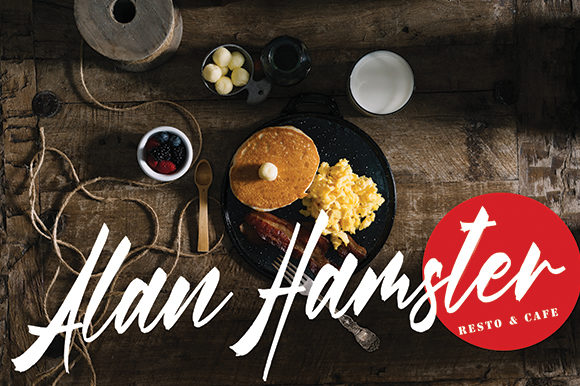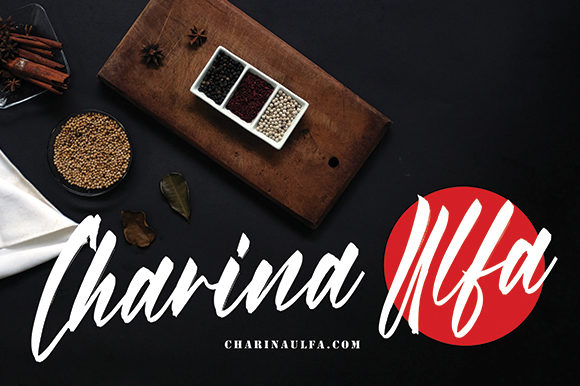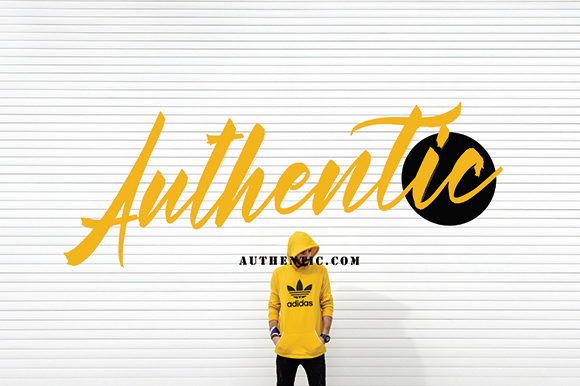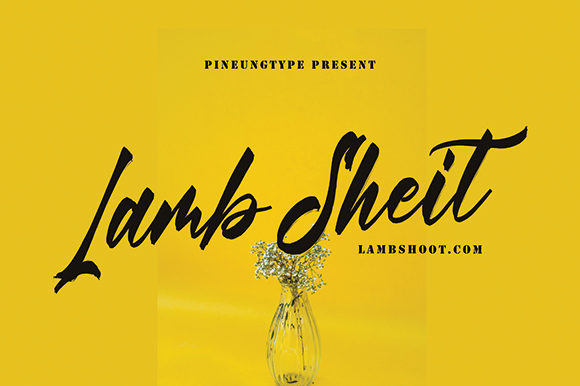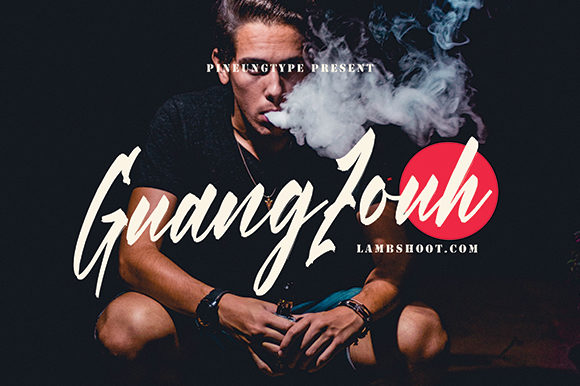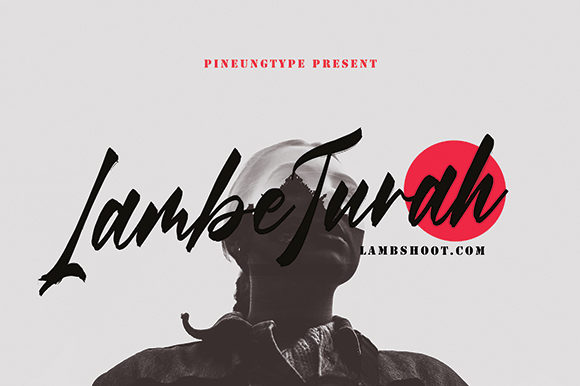
Shintte Lifat Font
Shintte Lifat is a new style handwritten font suited for many different projects! It will turn any project of yours in to a new piece of art!